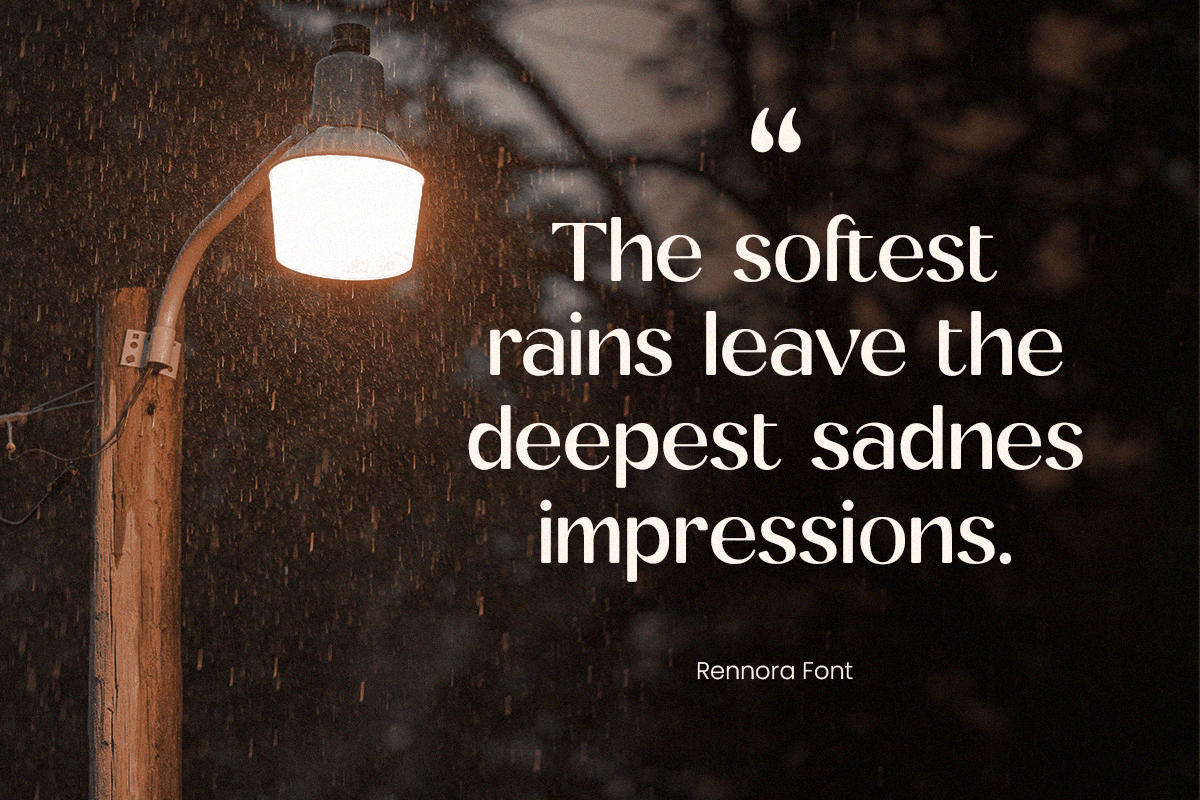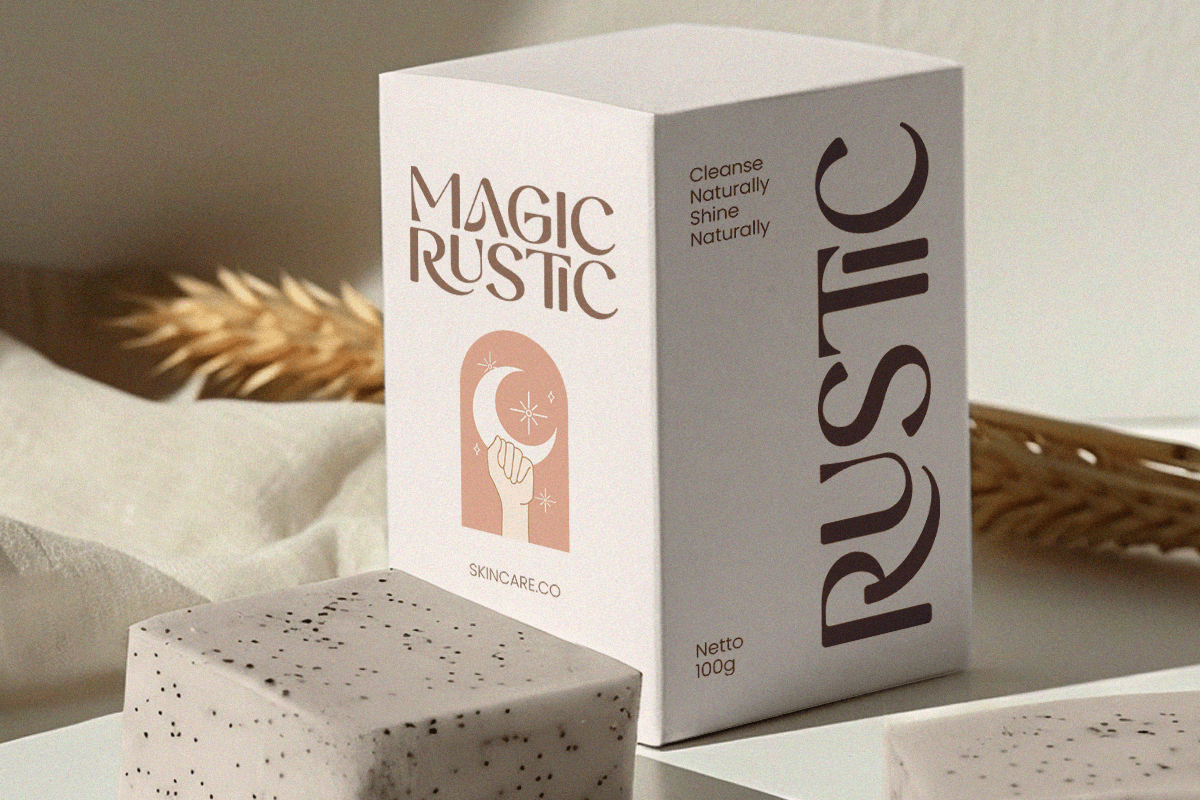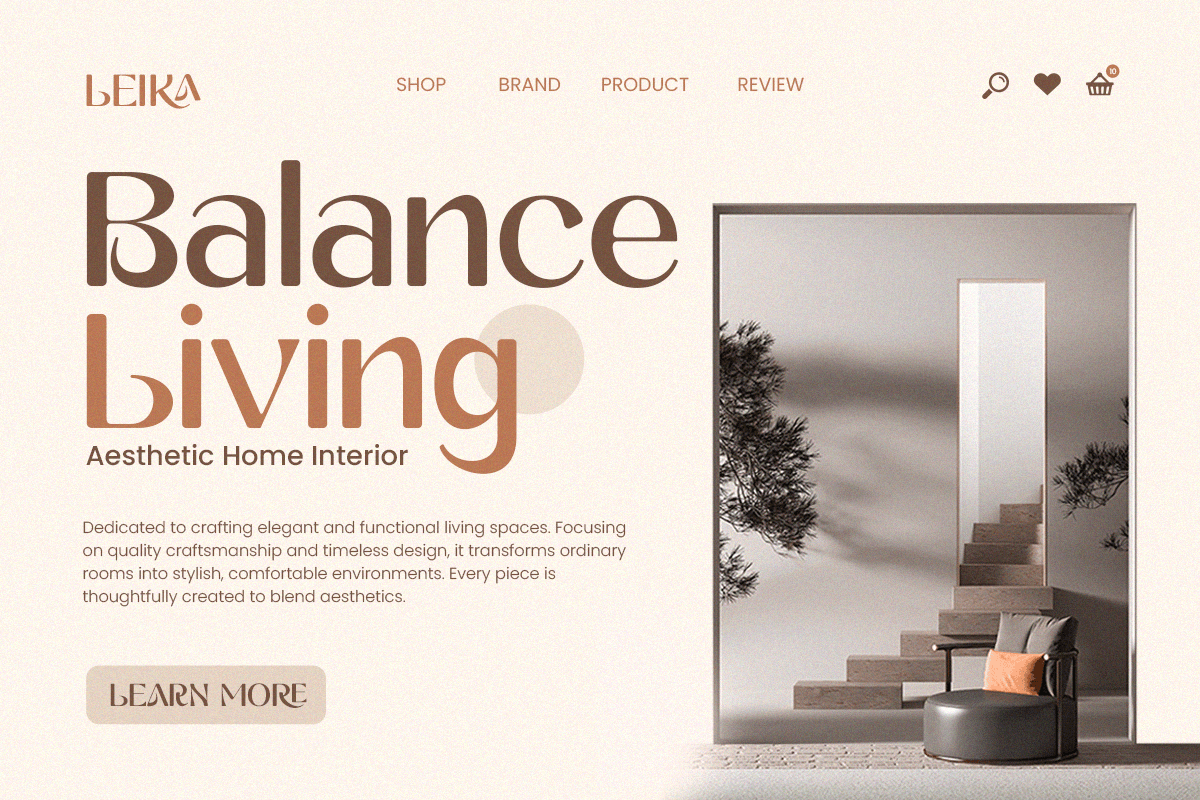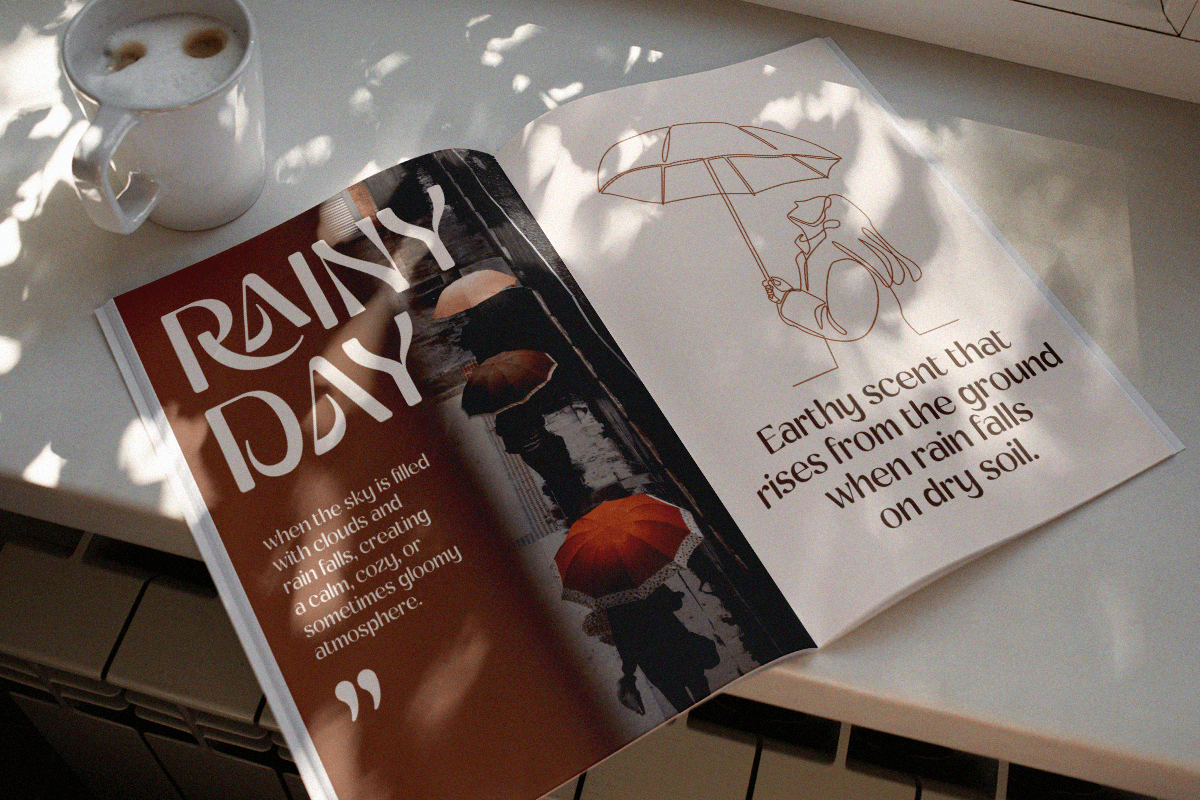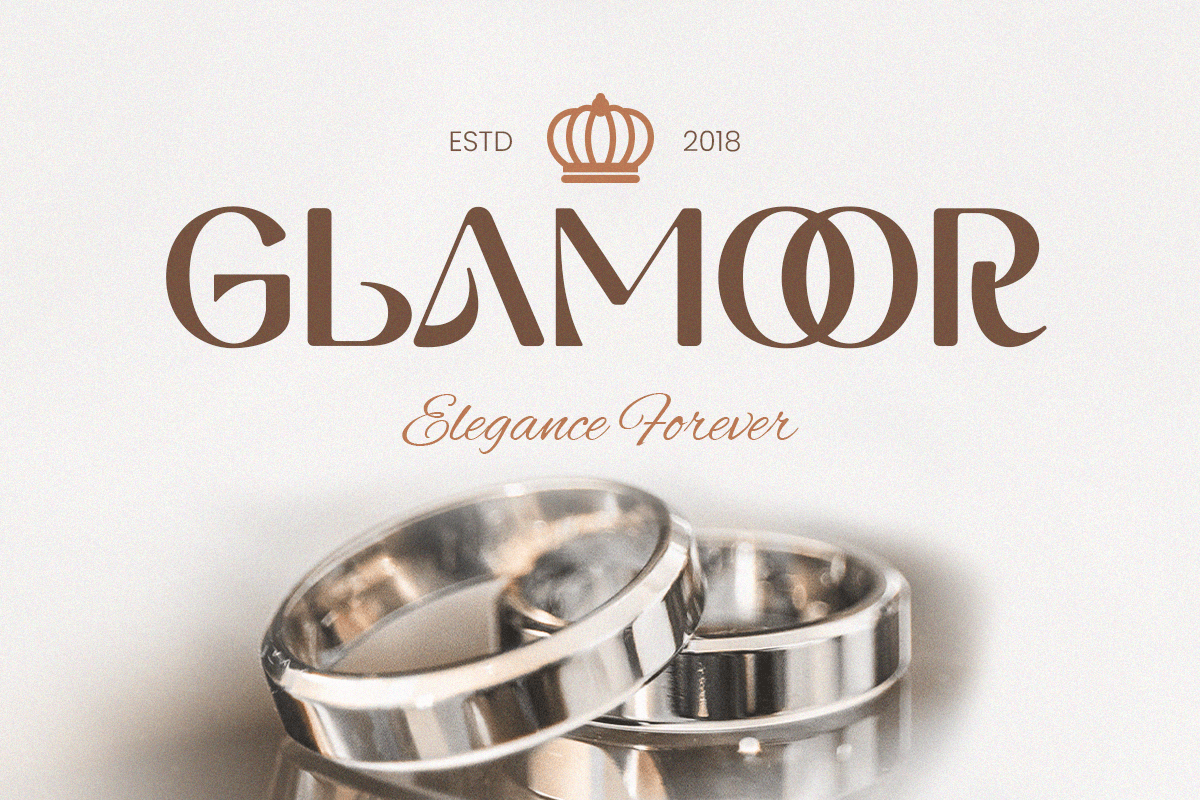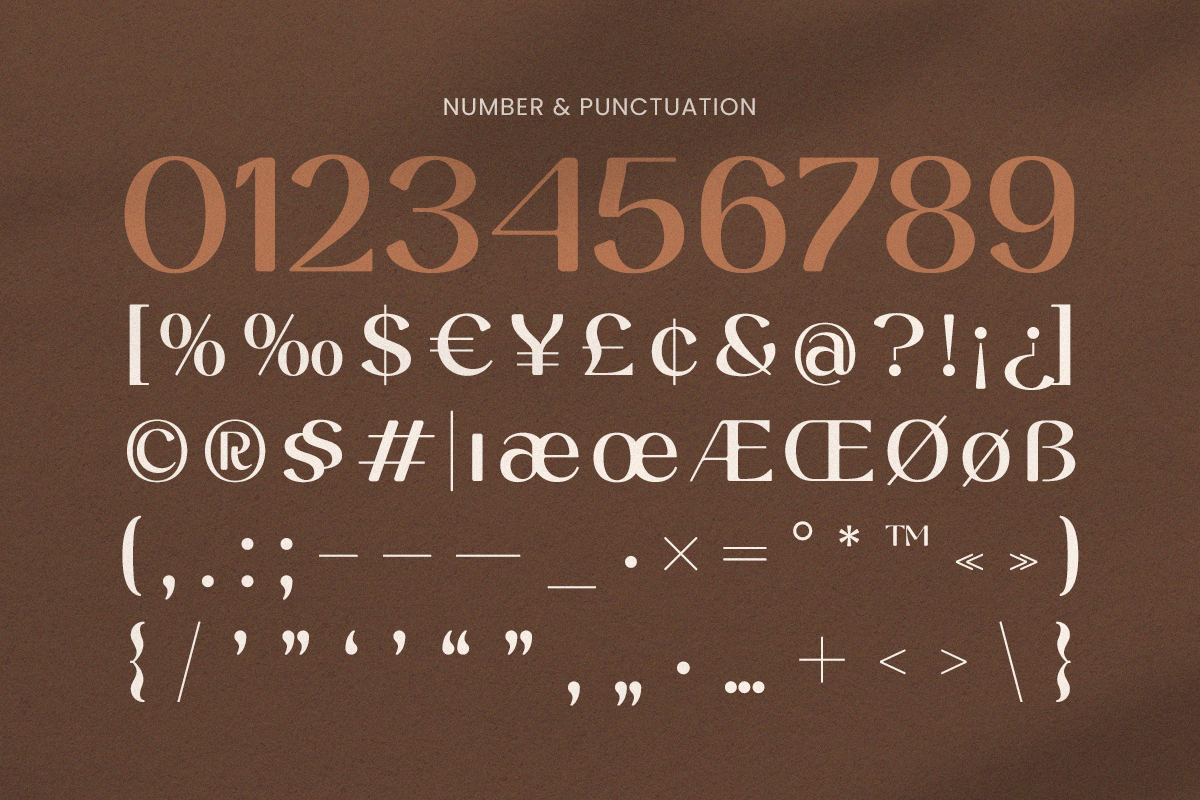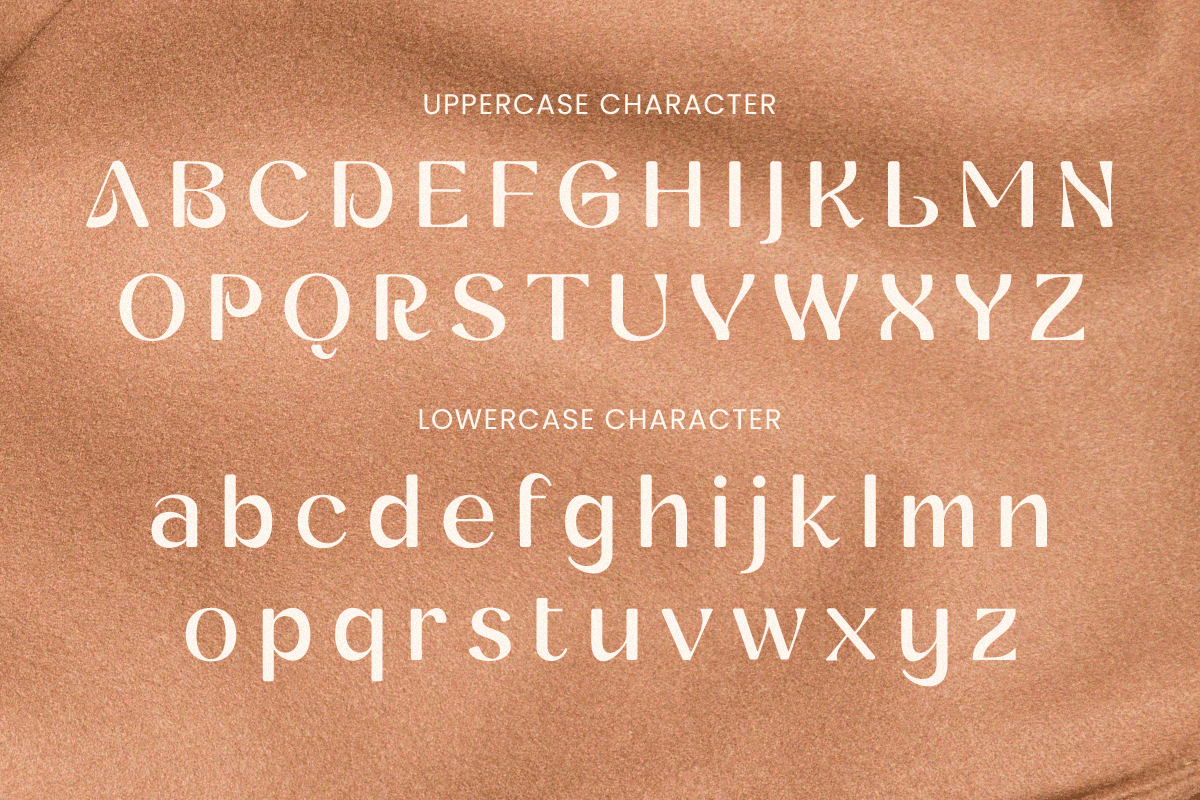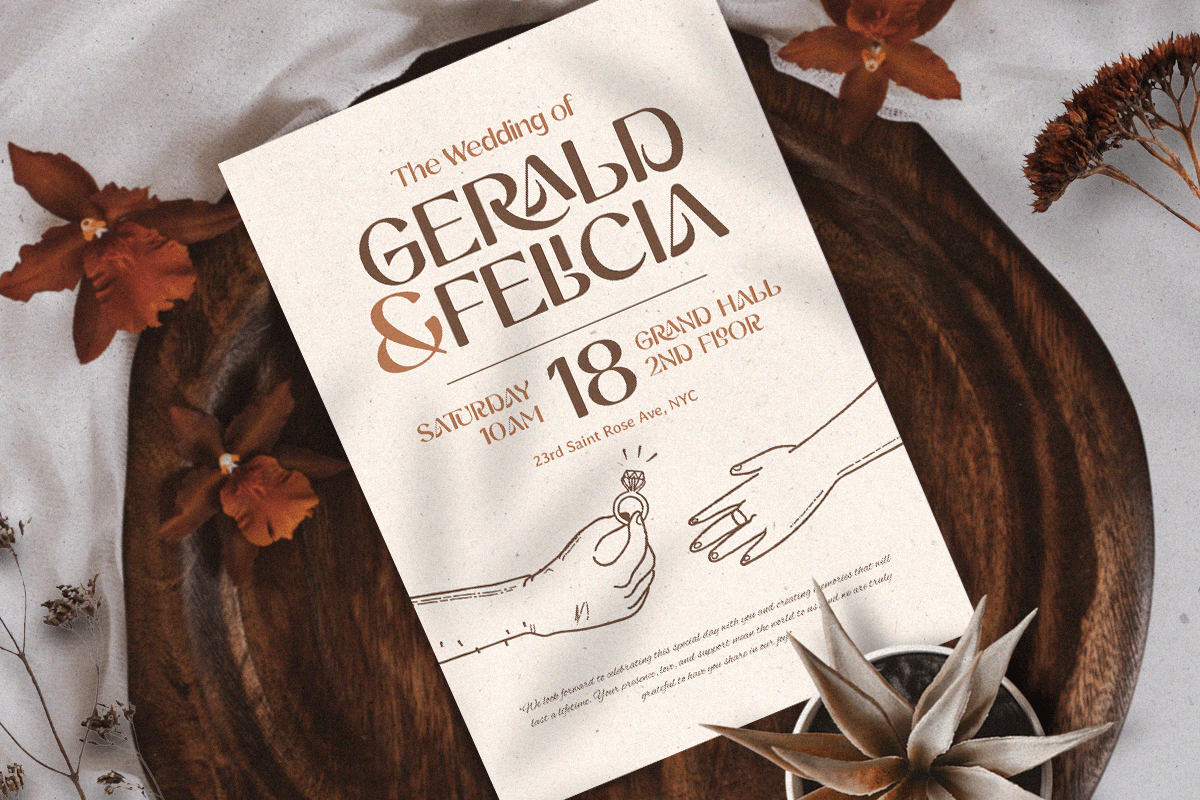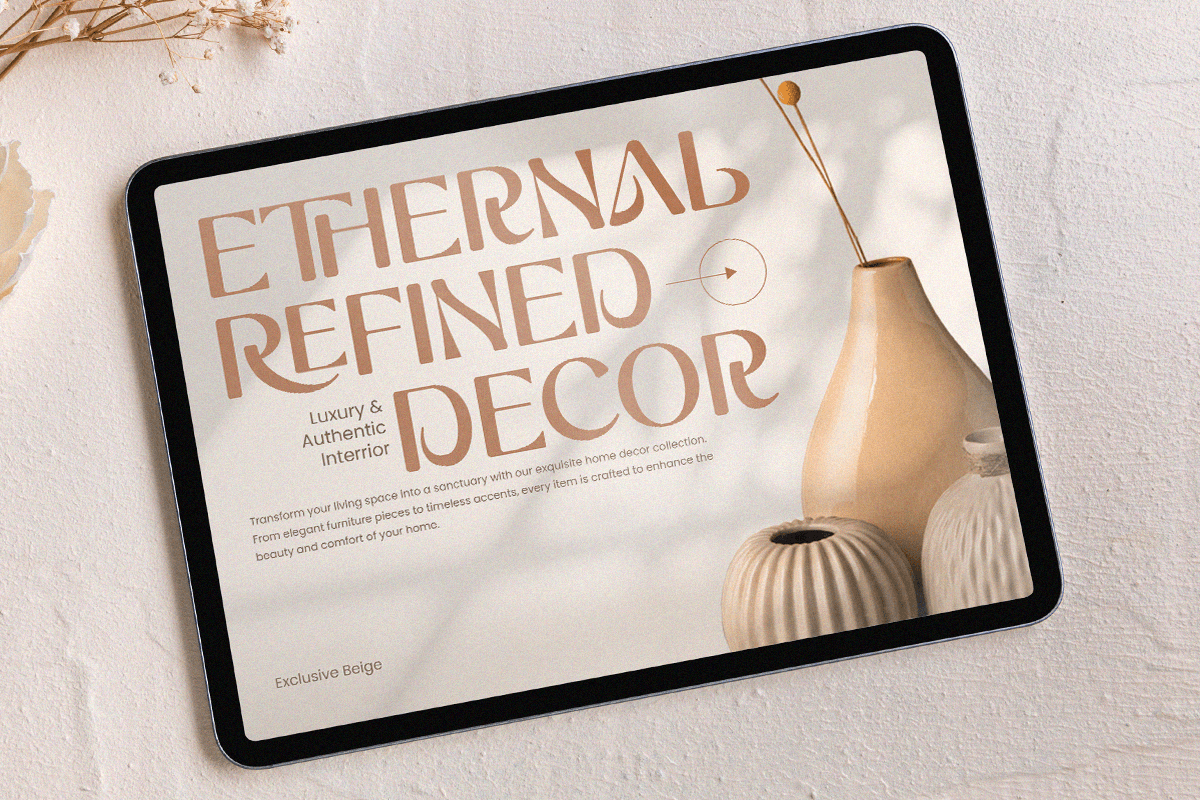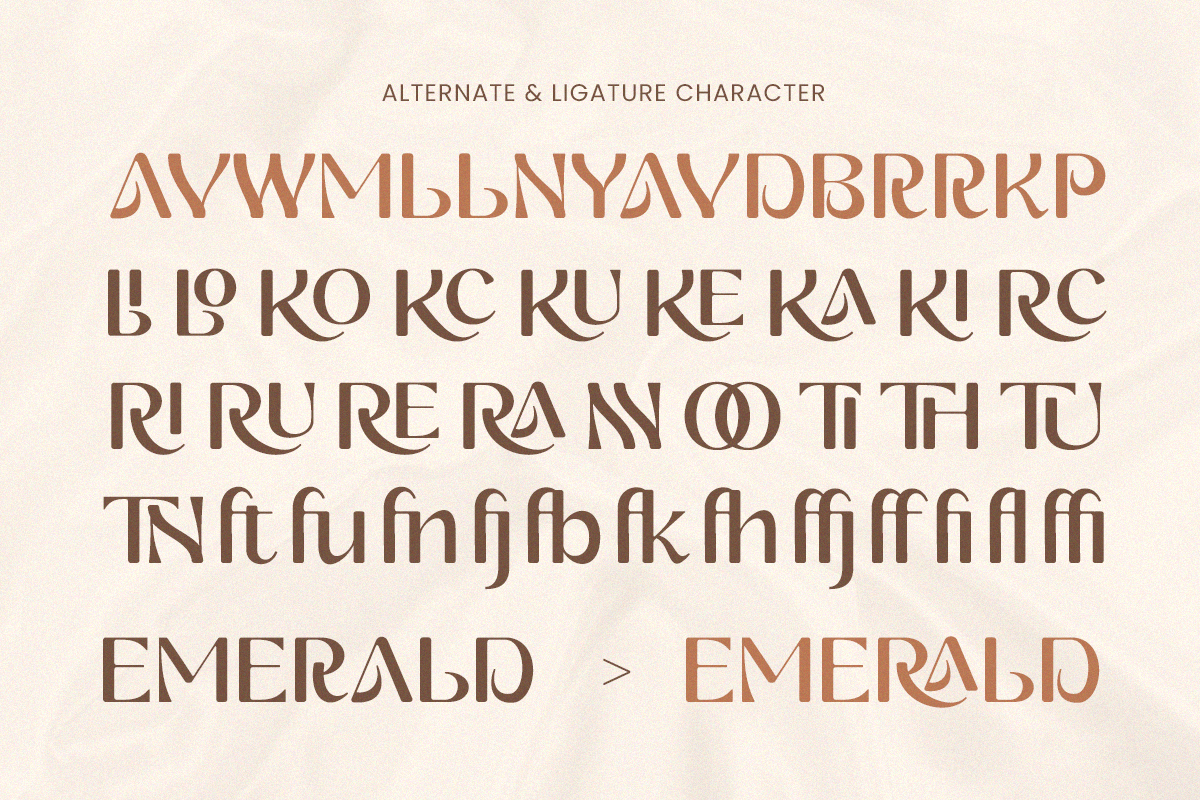
Rennora - Branding Sans Serif Font
RENNORA is a branding stylish sans serif font designed to bring elegance and sophistication to your visual identity. Ideal for logos, branding projects, stationery, and high-end designs, this font combines refined letterforms with modern readability. With its chic and polished style, RENNORA delivers a professional yet creative appearance, making it perfect for luxury brands, boutique businesses, and premium marketing materials.
RENNORA – Branding Stylish Sans Serif Font Features
\* Elegant and stylish sans serif character set
\* Perfect for branding, logos, and modern designs
\* Uppercase, lowercase, numerals, and punctuation included
\* OpenType features for extra versatility
Elevate your branding projects with RENNORA – the ultimate sans serif font for stylish, elegant designs!